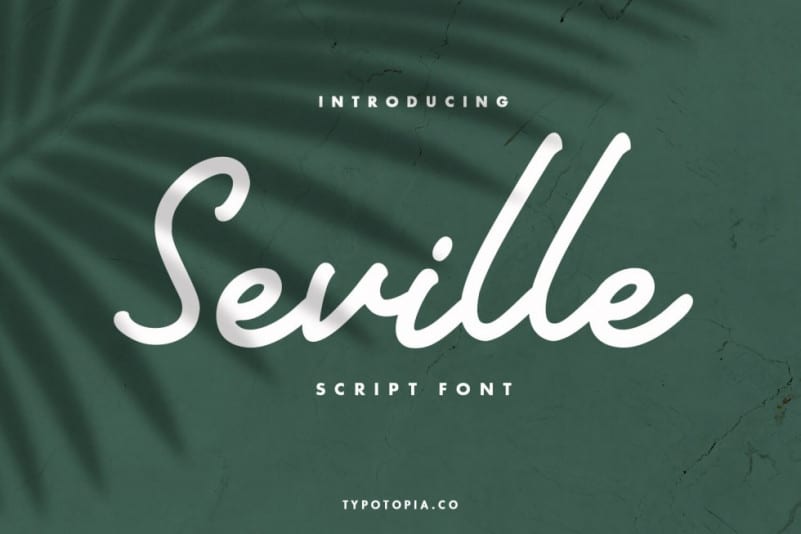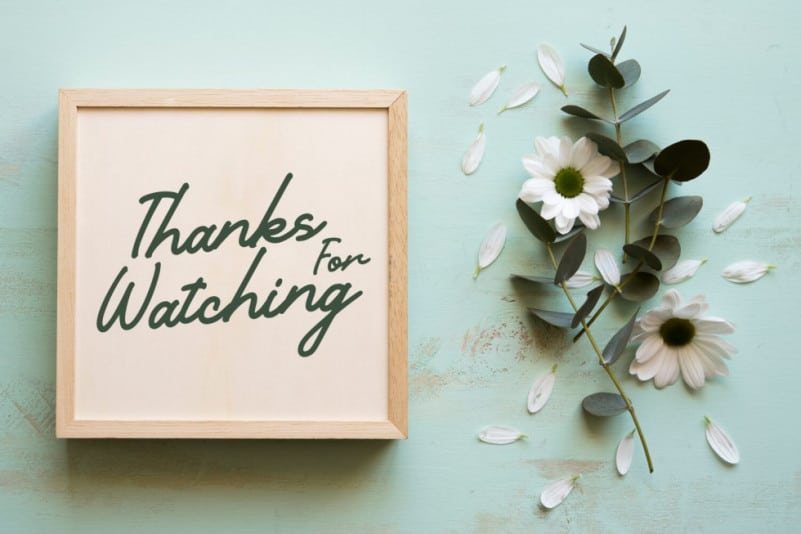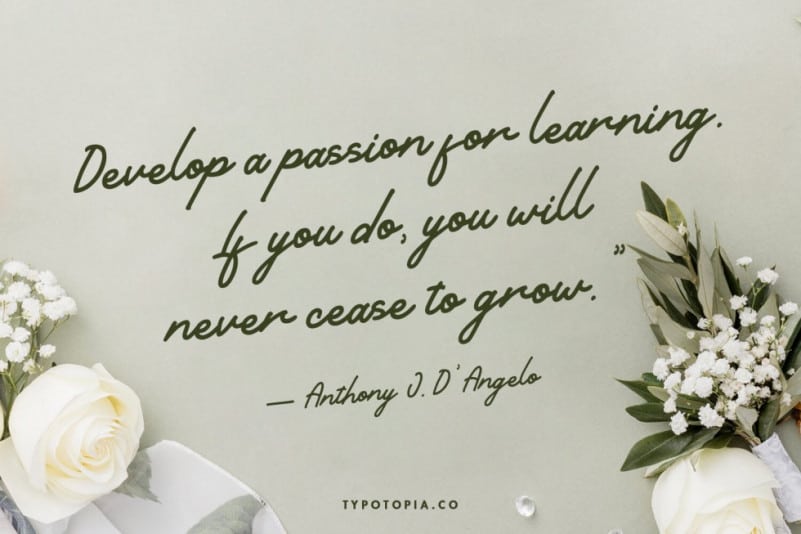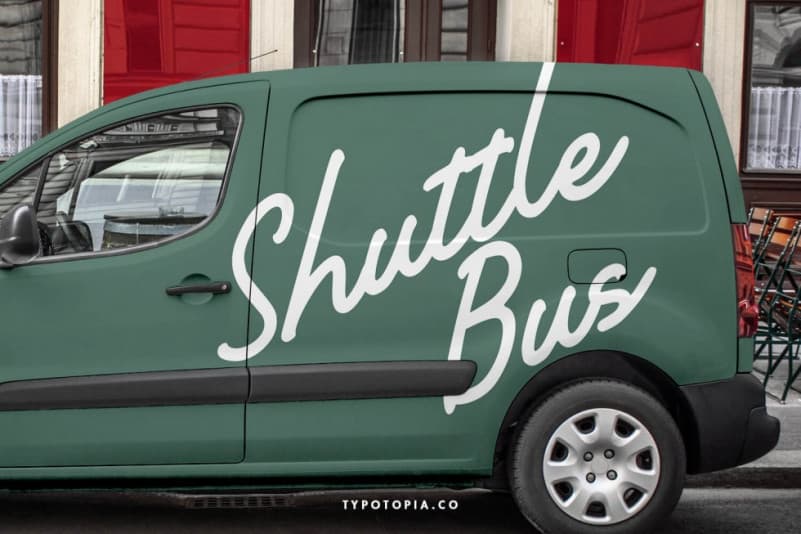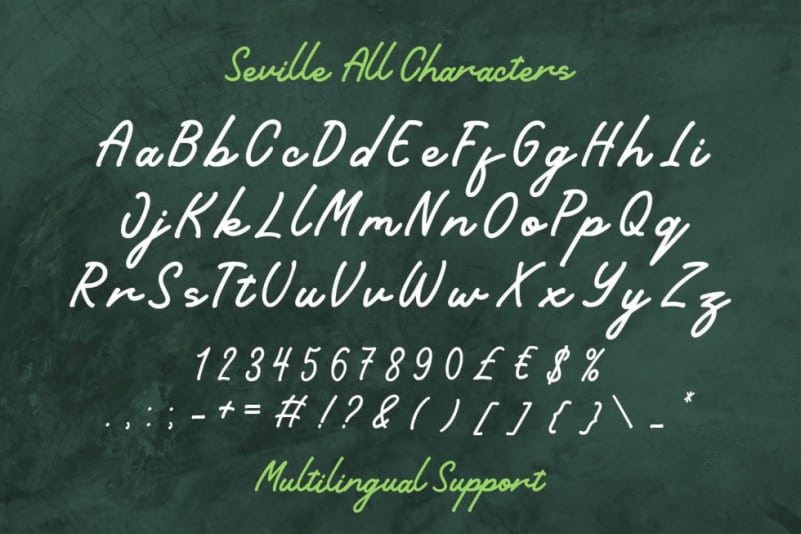
Seville Handwritten Font is A Script Typeface. This type of font perfectly made to be applied especially for logos, Poster, stationery, magazines, menus, books, invitations, greeting cards, packaging, labels, apparel, marketing, business cards, etc.